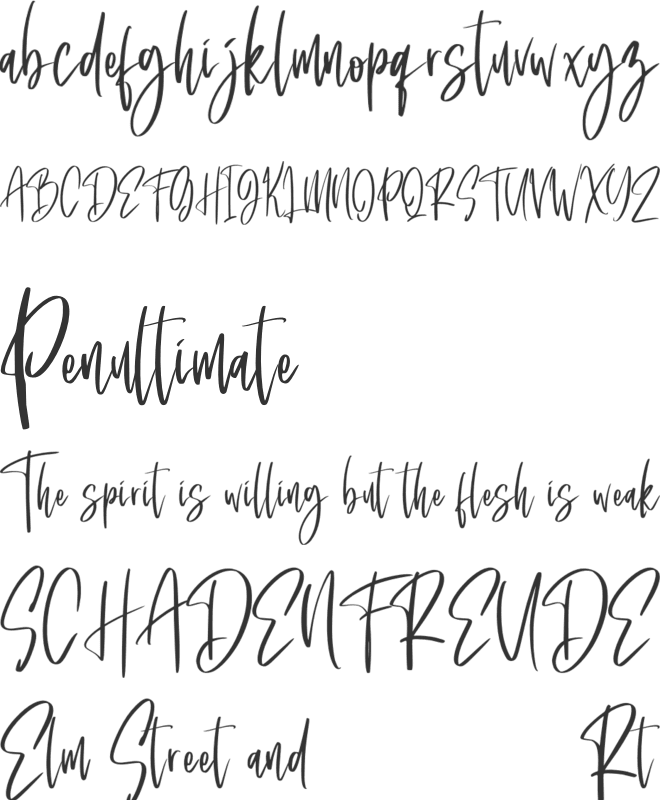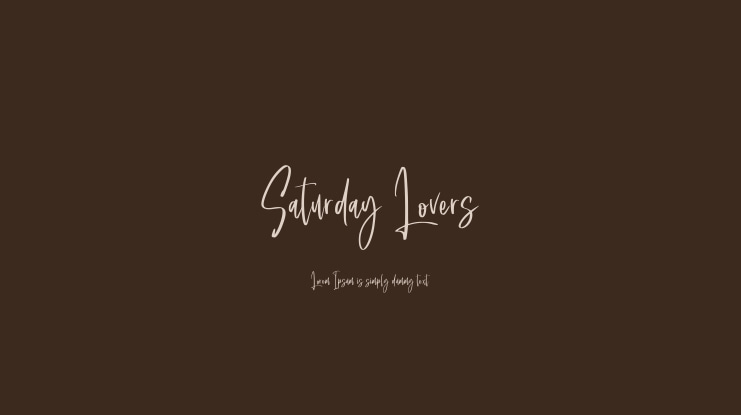
Saturday Lovers Font
Introducing Saturday Lovers Font. With a classy and natural handwritten style, it brings a classy and chic typeface. Saturday Lovers is best used for branding, logotype, quotes and etc .
Beautiful Ligatures
Multilingual Support
Numerals and Punctuation